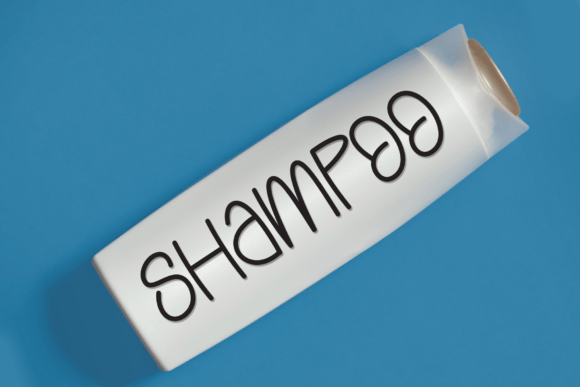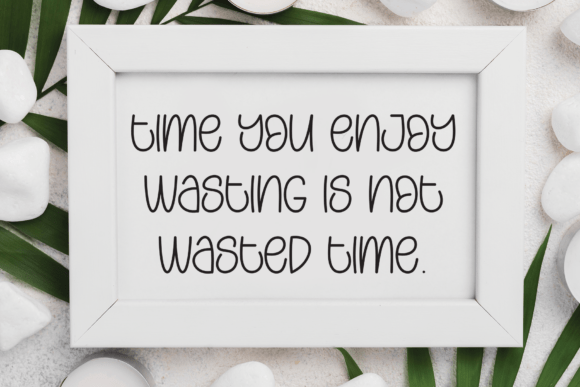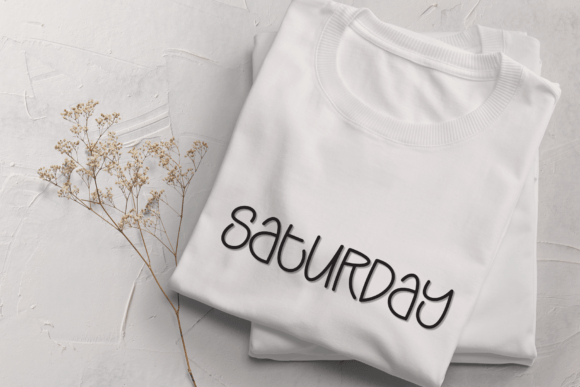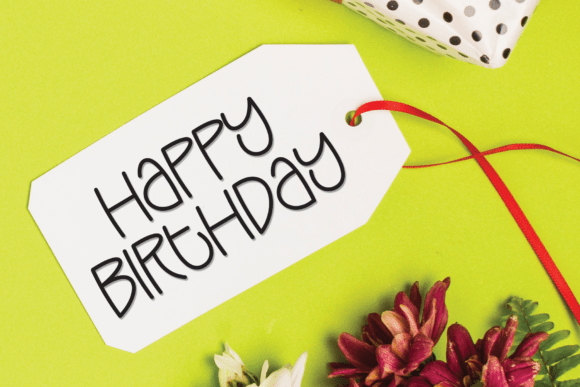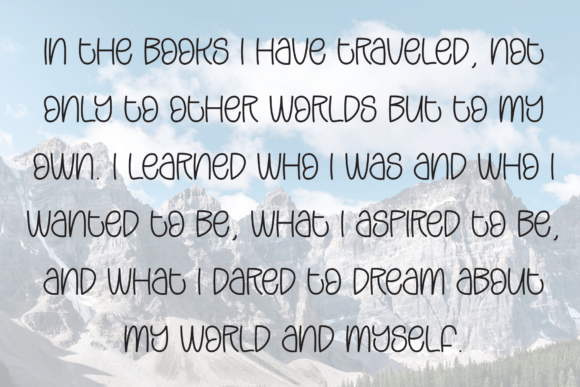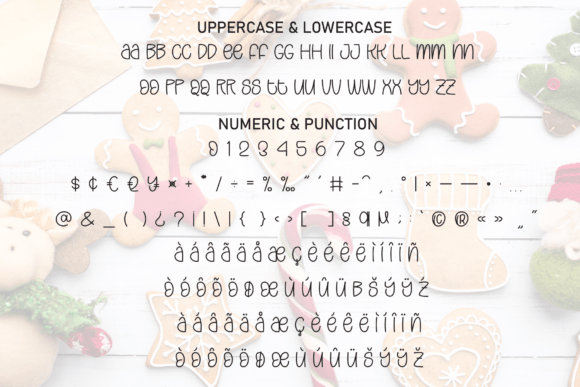
Discover the Magic of Christmas Ginger Font
It’s a moment of truth for every designer – you’re working on a project, and the deadline is looming. You’re trying to find that perfect font that will make your design pop, but nothing seems quite right. I recall a particularly stressful experience while working on a wedding invitation project. My client wanted a font that was both elegant and playful, but I just couldn’t seem to find the right fit. That’s when I stumbled upon the Christmas Ginger Font, and it completely transformed my design.
A Font that Embodies Charm and Simplicity
Introducing the Christmas Ginger Font, a delightful embodiment of charm and simplicity. This handwritten display font encapsulates a subtle touch of warmth and friendliness, making it perfect for wedding invitations, heartwarming cards, or any design demanding a sprinkle of joy. The font’s unique craftsmanship and artistic prowess elevate the mood of your design, providing a playful touch that’s hard to resist.
- ✨ The font’s subtle touch of warmth and friendliness makes it perfect for designs that require a personal touch.
- ✅ The unique craftsmanship and artistic prowess of the font make it stand out from more traditional fonts.
- 🎉 The font’s playful touch is perfect for designs that require a bit of whimsy.
While the Christmas Ginger Font is a stunning addition to any design, there are a few quirks to be aware of. ⚠️ The font may not be suitable for body text, as it’s primarily designed for display purposes. Additionally, some users may find the font’s handwritten nature to be slightly inconsistent.
The Designer Inspiration Behind Christmas Ginger Font
The Christmas Ginger Font was inspired by the warmth and joy of the holiday season. The designer, who wishes to remain anonymous, wanted to create a font that captured the essence of Christmas without being too festive or over-the-top. The result is a font that’s both elegant and playful, perfect for designs that require a touch of whimsy.
Q: What is the Christmas Ginger Font?
A: The Christmas Ginger Font is a handwritten display font that encapsulates a subtle touch of warmth and friendliness.
Q: What is the Christmas Ginger Font used for?
A: The Christmas Ginger Font is perfect for wedding invitations, heartwarming cards, or any design demanding a sprinkle of joy.